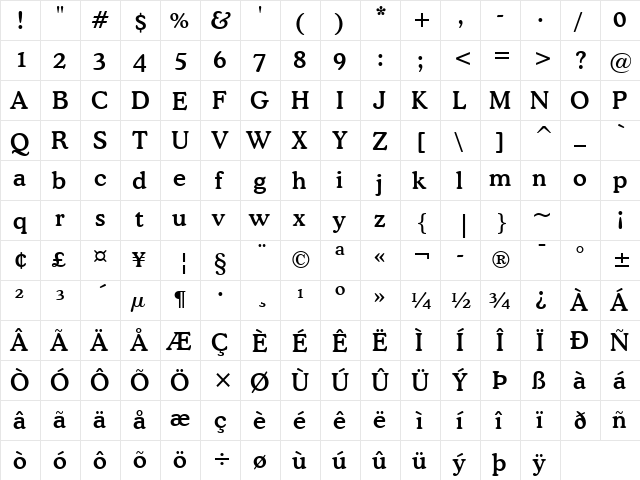
Cooper Md BT Medium Font Preview
Cooper Md BT Medium
Design Context for Cooper Md BT Typeface
Cooper Md BT offers clean, dependable letterforms without strong stylistic allegiance, making it a practical choice for designers who need flexibility.